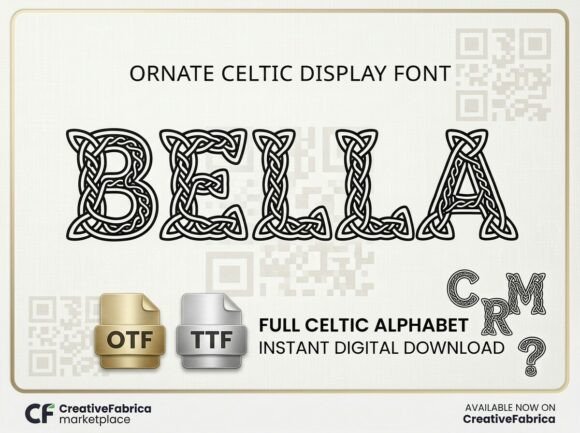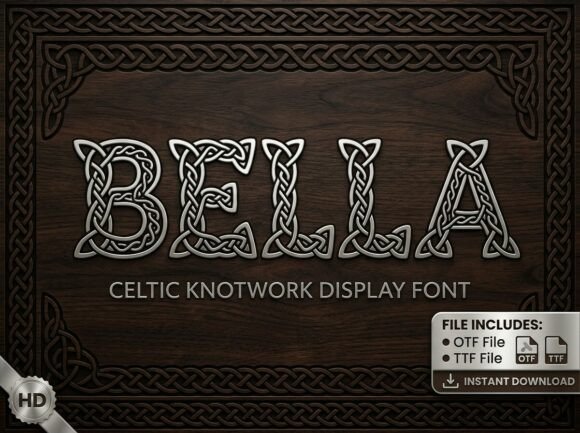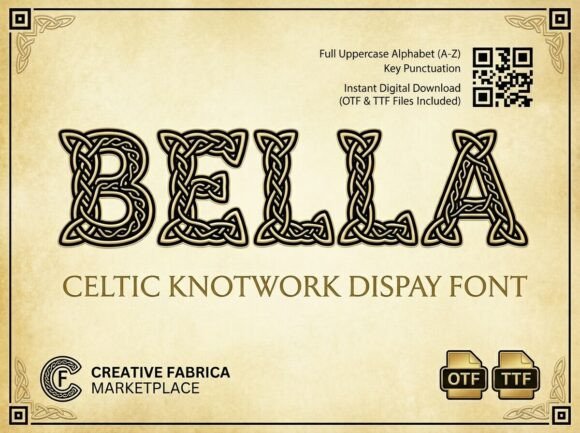
Introducing Bella Font: The Ultimate Decorative Display Font
Are you tired of using the same old fonts for your creative projects? Look no further than Bella Font, a stunning decorative display font designed to be the center of attention. With its unique artistic elements and strong visual personality, this font is perfect for creators who want to break away from the ordinary and make a statement.
What Makes Bella Font Special?
Bella Font is a versatile font that can be used for a variety of creative projects, including bold headlines, artistic logos, and creative packaging. Its professional and polished finish ensures that your designs will look sleek and sophisticated, while its unique artistic elements will set your work apart from the crowd.
⚠️ IMPORTANT NOTE BEFORE PURCHASE: Bella Font is an ALL-CAPS (Uppercase Only) display typeface. This means that it does not include lowercase letters. It is specifically designed for high-impact headlines, logos, and decorative initials where every letter is a work of art. If you’re looking for a font that can be used for body text or other applications that require lowercase letters, Bella Font may not be the best choice for your needs.
Who is Bella Font For?
Bella Font is perfect for:
• Graphic designers looking for a unique and eye-catching font for their clients’ branding and marketing materials.
• Crafters and DIY enthusiasts who want to add a personal touch to their handmade projects, such as signs, cards, and gift tags.
• Small business owners who want to create a strong visual identity for their brand.
• Artists and illustrators who want to add a decorative element to their work.
Tips for Using Bella Font
Here are a few tips for getting the most out of Bella Font:
• Use it sparingly: Because Bella Font is a decorative display font, it’s best to use it sparingly to make a big impact. Use it for headlines, titles, or key phrases to draw attention to your message.
• Experiment with colors and textures: Bella Font looks great in a variety of colors and textures. Experiment with different combinations to find the one that works best for your project.
• Pair it with a simple font: To create visual interest, pair Bella Font with a simple font for body text or other secondary elements.
Bella Font is a stunning decorative display font that’s perfect for creators who want to make a statement. With its unique artistic elements and strong visual personality, this font is sure to turn heads. Whether you’re a graphic designer, crafter, or small business owner, Bella Font is a versatile and professional font that can help you achieve your creative goals.